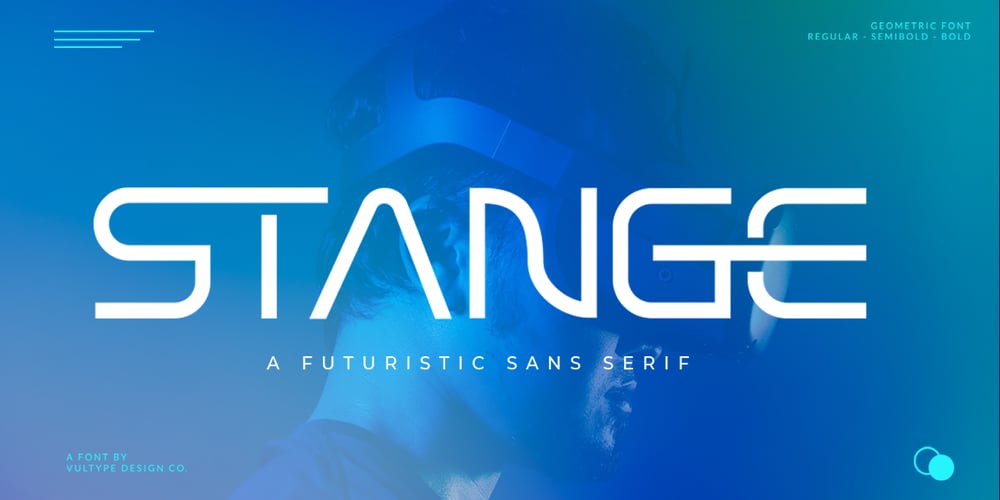
Stange Font Family was designed by Candra Hamdani and published by Vultype Co. Stange contains 3 styles and family package options. Stange is a font with a futuristic edge, geometric corners, perfect for technology theme. As with its Stange, Stange makes a strong impression in print, headlines, video, and social media – whether paired with a contrasting typeface or on its own.